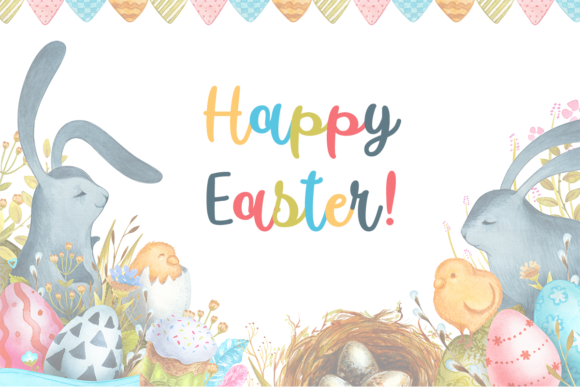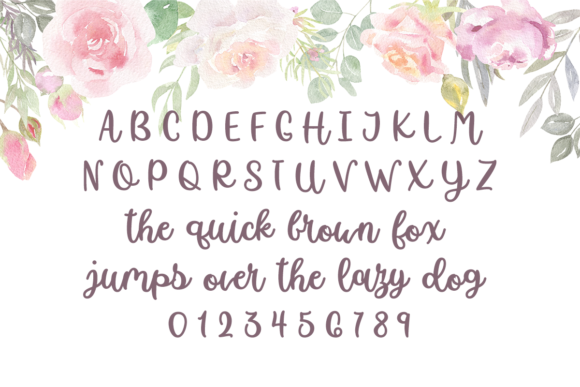
Winter in March Font
db-ku.com - Script & Handwritten -- Winter in March is a charming and cursive script font. It would be great on Etsy shop, logos, banners, and products. Its whimsical style makes it ideal for creating cute greeting cards and personalized items, as well as cartoon or holiday-themed projects.